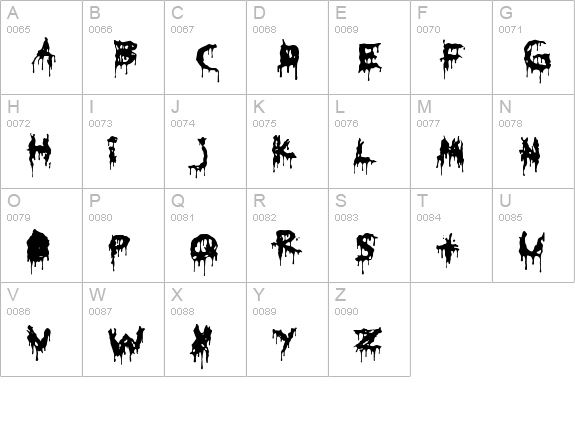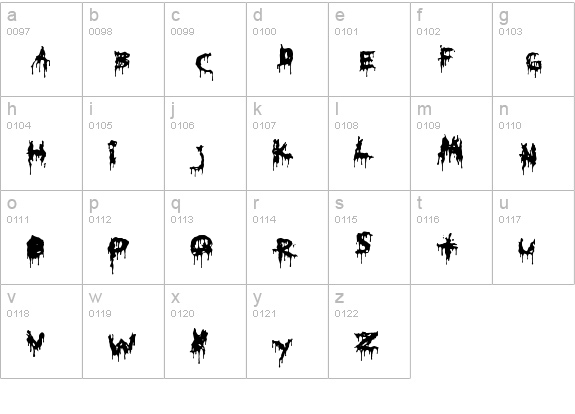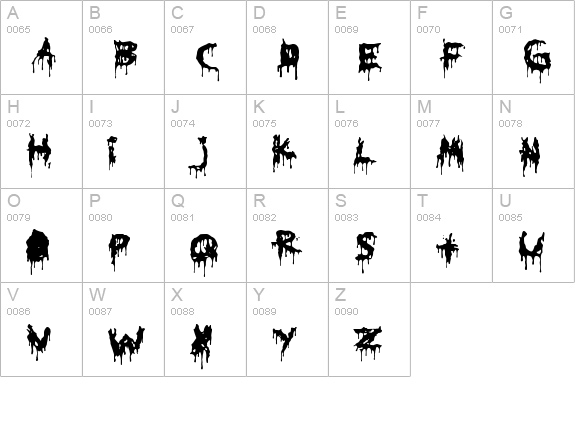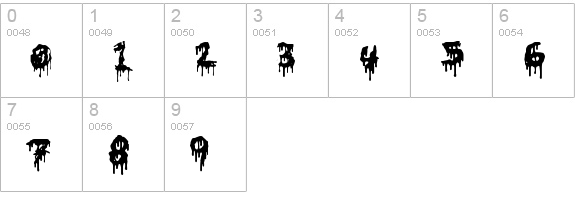
HoMicIDE EFfeCt Font Details
Introducing the HoMicIDE EFfeCt font, a striking and edgy typeface that is sure to make a bold statement in any design project. This font exudes a sense of danger and raw energy, with its jagged and distorted letterforms that seem to jump off the page. The HoMicIDE EFfeCt font is perfect for those seeking to add a touch of urban grit and rebelliousness to their designs. Whether you're designing a poster for a rock concert, creating a logo for a streetwear brand, or even working on a horror-themed project, this font will instantly grab attention and convey a sense of intensity. What sets the HoMicIDE EFfeCt font apart is not only its unique and eye-catching design, but also the fact that it is freely available to download at FontsMarket.com. This means that you can unleash your creativity without having to worry about breaking the bank. With its wide range of characters and symbols, the HoMicIDE EFfeCt font offers endless possibilities for customization and experimentation. Whether you want to create a bold headline or add a touch of grunge to your designs, this font will not disappoint. So, if you're looking for a font that embodies the spirit of rebellion and offers unlimited creative freedom, look no further than the HoMicIDE EFfeCt font. Download it for free at FontsMarket.com and let your designs scream with attitude and style.